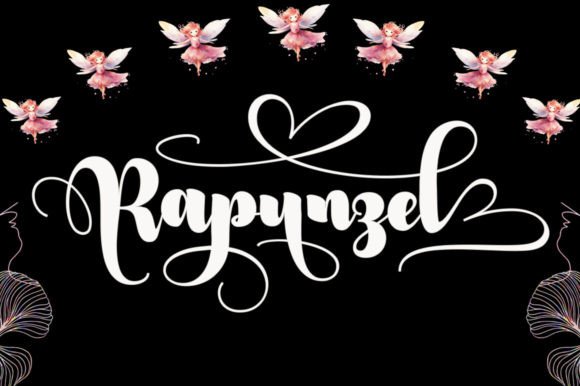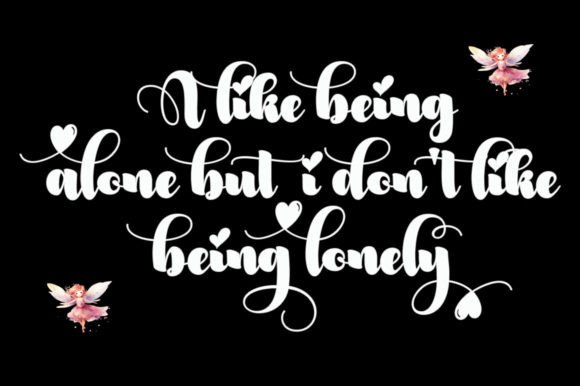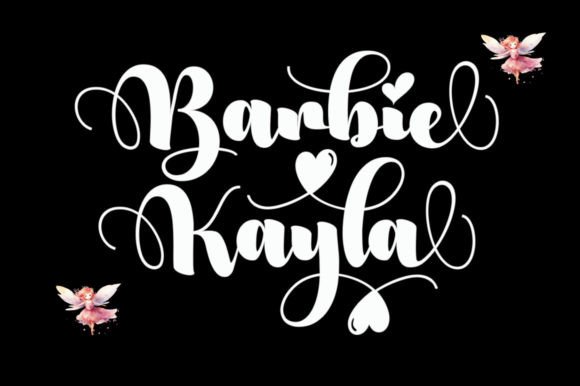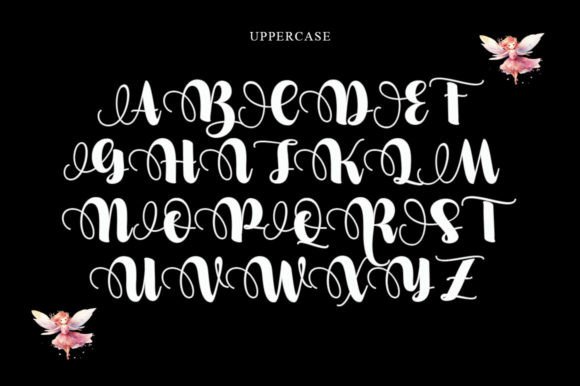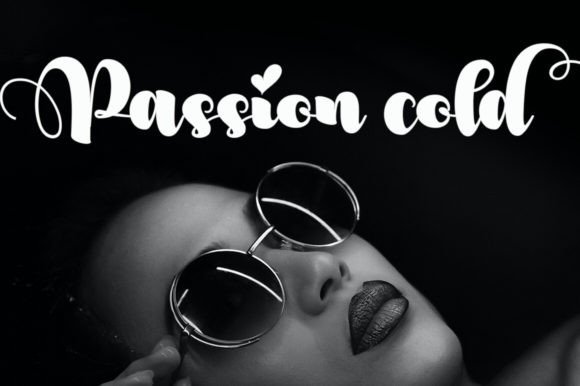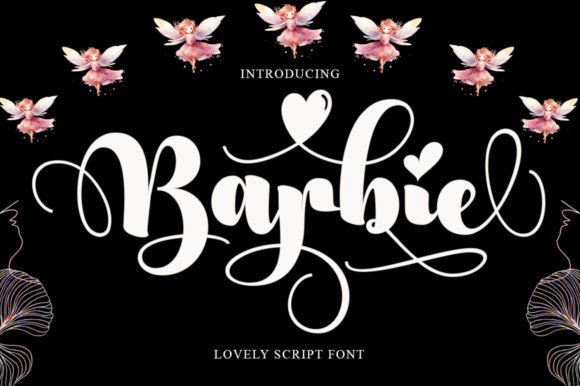
Unleash Your Creativity with the Timeless Charm of Barbie Font
Have you ever been rummaging through your grandmother’s attic, uncovering old trunks and forgotten treasures, when you stumble upon a vintage postcard or a handwritten letter? The instant rush of nostalgia and creativity that hits you is undeniable. It’s moments like these that remind us of the power of beautiful handwriting and typography. In the world of design, where precision and digitalization often reign supreme, there’s a growing demand for fonts that evoke a sense of warmth and personality.
Enter the enchanting Barbie Font, a collection of stylish handwriting fonts that are perfect for adding a touch of whimsy to your designs. Whether you’re a seasoned designer or a creative enthusiast, Barbie Font is an invaluable asset in your toolkit. Its versatility makes it ideal for a wide range of applications, from wedding invitations and social media logos to product packaging and photography watermarks.
Barbie Font Key Features
• Font Family: The Barbie font is a custom-designed font, not a standard font family, making it unique to the brand.
• Unique Characteristics: The Barbie font features a distinctive, playful, and feminine design, making it instantly recognizable as the brand’s visual identity.
Barbie Font Review
When I first saw the Barbie Font, I was curious about its potential. As a designer, I appreciate unique and playful typography. In this review, I’ll share my honest thoughts on what works well and what could be improved.
• Cursive, handwritten feel: The font’s cursive design gives it a friendly and approachable vibe, perfect for children’s content or fashion-related projects.
• Customizable: The font offers various styles and ligatures, making it adaptable to different design needs.
• Colorful: The font’s color palette is bright and cheerful, which can add a playful touch to any design.
• Limited versatility: While the font is great for children’s content, its cursive design might not be suitable for more formal or professional projects.
• Lack of consistency: Some characters may appear inconsistent or rough, which can be distracting in certain designs.
The Barbie Font is a fun and playful typeface that excels in specific design contexts. While it may have some limitations, its unique character and customizable options make it a great choice for the right projects. With some refinement, this font has the potential to become a beloved favorite among designers.
To get the most out of the Barbie Font, try the following:
• Use it in combination with other playful fonts for a fun and whimsical design.
• Experiment with different font sizes and styles to create visual interest.
• Use it for designs that require a sense of nostalgia or retro flair.
The Barbie Font is commonly used in:
• Children’s birthday party invitations and decorations.
• Retro-themed designs and advertising.
• Designs that require a sense of playfulness and whimsy.